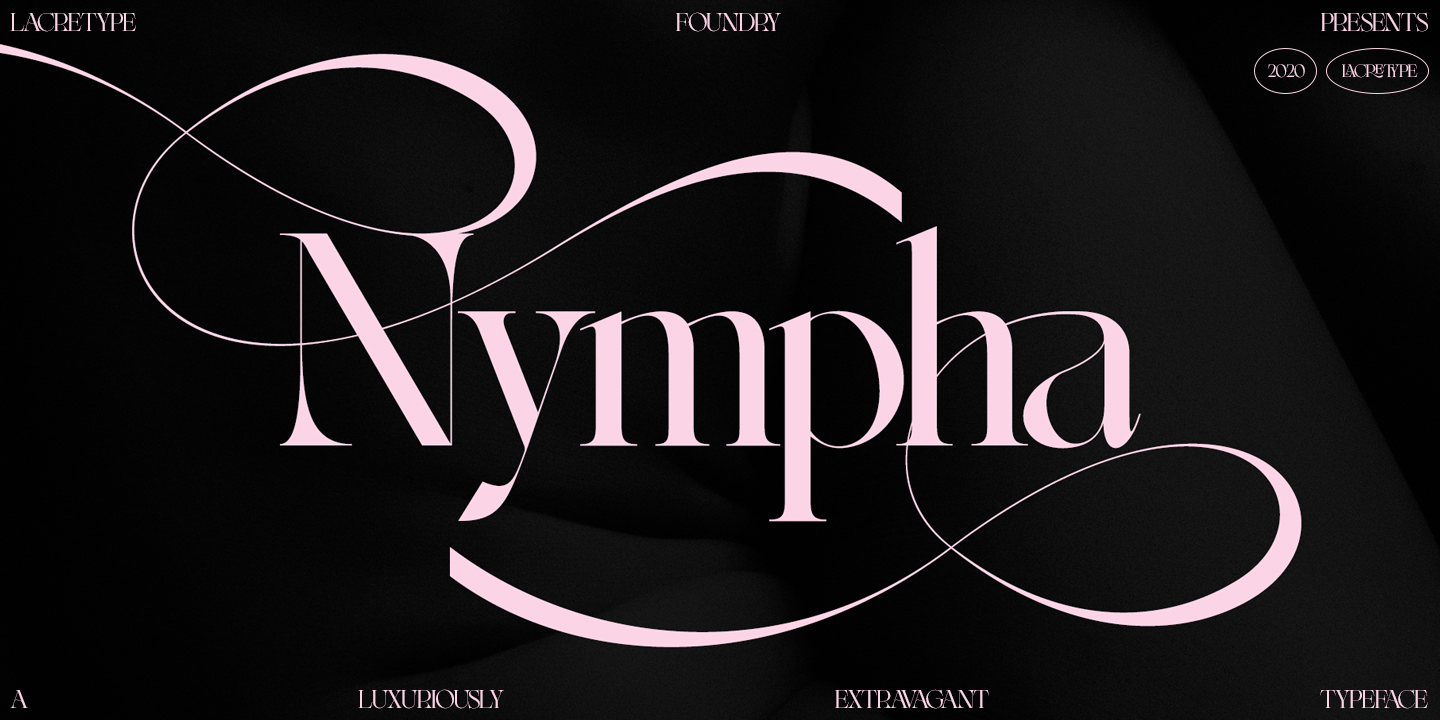
Nympha Font is perfect for ethereal beauty branding, nature goddess campaigns, mystical spa treatments, enchanted forest products, fairy tale book covers, magical event invitations, celestial wellness centers, dreamy fashion collections, mythological art projects, and otherworldly creative expressions.
What makes Nympha Font so exciting is its mystical elegance that captures the ethereal beauty and supernatural grace of mythological water spirits and forest nymphs. This typeface features delicate letterforms with flowing curves and enchanting character that evokes the magical essence of nature's most beautiful and mysterious beings. The font's ethereal and enchanting character communicates otherworldly beauty and natural magic, making it perfect for brands seeking to establish mystical connections with nature and appeal to audiences who are drawn to fantasy, natural spirituality, and the enchanting power of mythological beauty.
Nympha Font family includes Regular, Light, Bold, and Script weights, along with mystical alternates and enchanted variations. The family also features special character sets including celestial symbols, nature motifs, and magical decorative elements that enhance the font's connection to mythological themes and supernatural beauty concepts.
The Nympha Font Free Download package offers designers access to enchanting mystical typography that brings ethereal beauty to any fantasy-inspired project. This magical typeface combines mythological design principles with contemporary functionality, creating a powerful visual tool for nature-spiritual brands and mystical organizations. Whether you're developing enchanted brand identities, designing mystical publications, or creating otherworldly marketing materials, this font provides the ethereal character needed to communicate natural magic and supernatural elegance.
Nympha Font supports comprehensive character sets including Latin alphabets, numbers, punctuation marks, and special mystical symbols. The font's gracefully flowing spacing reflects natural water movement while ensuring excellent readability across all magical applications. Its OpenType features include contextual alternates, mystical ligatures, and enchanted decorative elements that expand creative possibilities for fantasy design projects.
Professional designers choose Nympha Font for projects requiring authentic mystical appeal and supernatural beauty aesthetics. The font excels in applications where ethereal elegance and natural magic are essential, offering the perfect solution for brands seeking to communicate otherworldly beauty, spiritual connection, and the enchanting power of mythological nature spirits. Its nymph-inspired character makes it ideal for wellness spas, mystical brands, and fantasy-focused creative organizations.
The Nympha Font Free Download provides creative professionals with an exceptional opportunity to explore mystical typography. With its ethereal character variations, mythological design elements, and enchanting quality, this font represents outstanding value for designers, spiritual organizations, and creative agencies specializing in mystical visual communications that celebrate the supernatural beauty of nature spirits and the magical elegance of mythological creatures and ethereal beings.